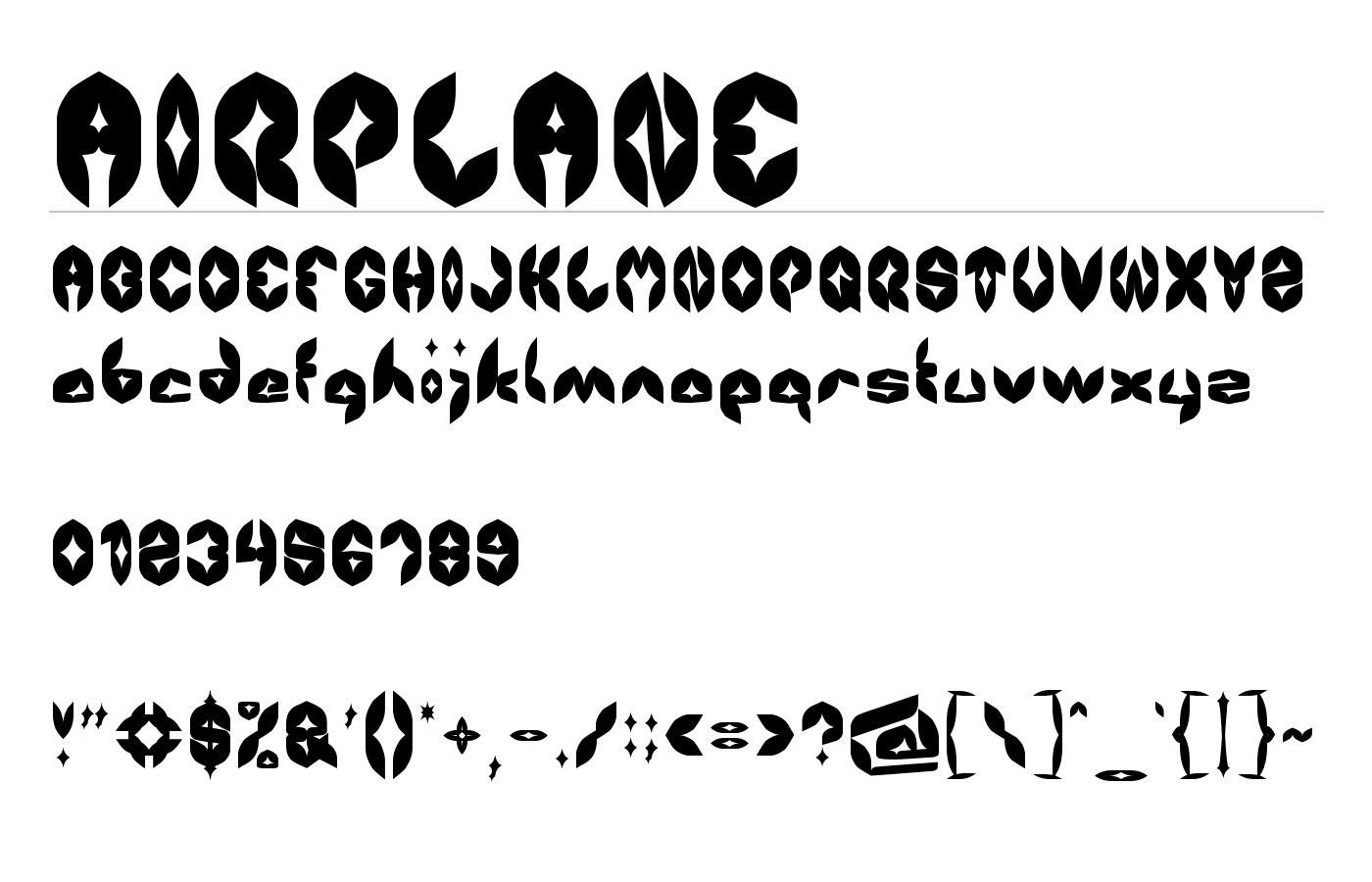
AIRPLANE is a bold, decorative sans serif font with a futuristic, geometric feel defined by its sharp, diamond-shaped cutouts and thick, compact letterforms. Its unique and edgy style makes it perfect for eye-catching headlines, logos, and creative designs that want to convey innovation and a sense of modern mystery. This font works best in display uses where its highly stylized shapes can shine without sacrificing legibility.
AIRPLANE Font
About AIRPLANE Font